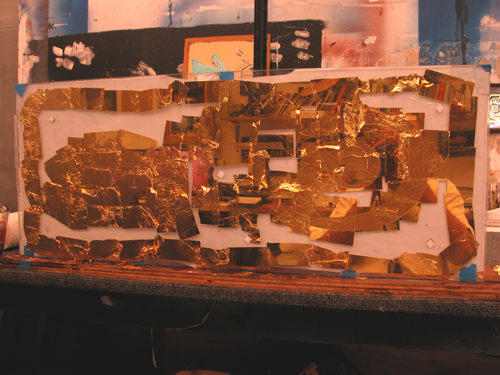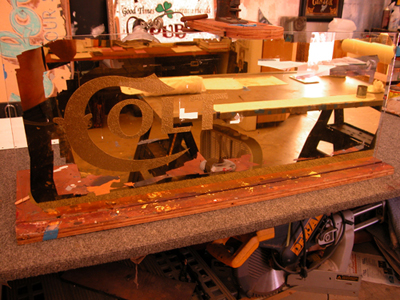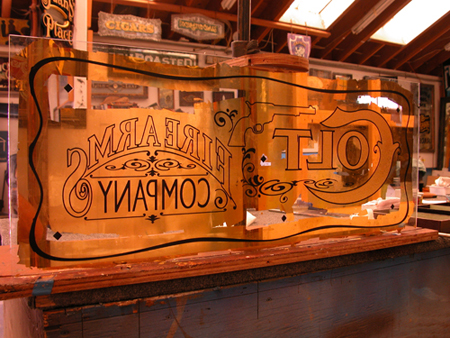
Colt 45 Glass Sign
A few people asked me to post a step by step so here go. Thisis going to be for a gun collector back east.
- First layer of 23k water gild gold.
- First I'm doing a Mica/acid emboss for the center of the Colt logo.
Rod, so far so good. How about a shot of the original artwork?
Here it is all gilded up and no where to go. I know it's now where near as exciting as a chinise londry.Oh yes I almost forgot the original art work.
Once I finally got the art for the gun printed I could make the screen to print the bright lines.
This project is a xmas present for a client so I kept it aside and worked on it when I could. If finally slowed down enough this week to finish it.
The client found a Dean Hensley piece on line that wasn't for sale so that's where the inspiration comes for. I talked to Dean's brother Tom , hoping they might have old art work or screens to buy but no such luck.
Well Rod, that is a great looking finished piece. I hope that the shipper takes great care of it and that it arrives in once piece.
I do feel obligated to point out the fact that I don't think the project was a successful one though - it looks nothing like the original art work you posted.
Well the original one was for Red Fox but he backed out. So after drinking a sixer of Colt 45 some how the art got changed. Sorry to disapoint you.